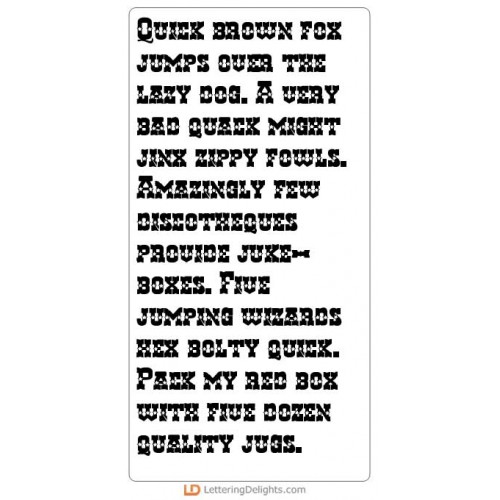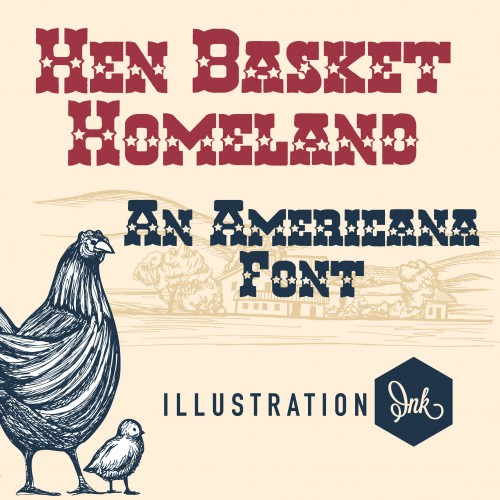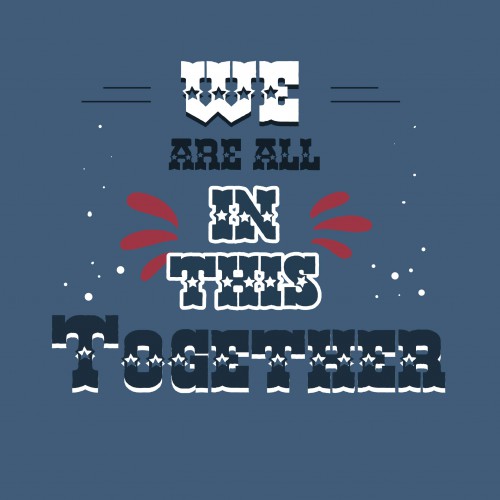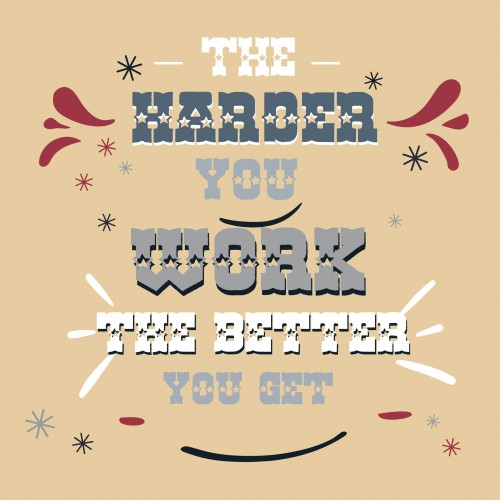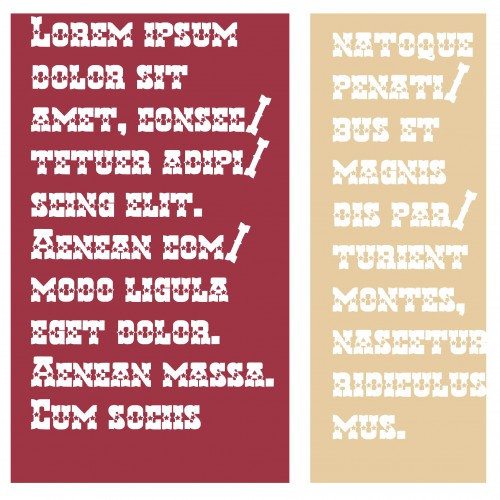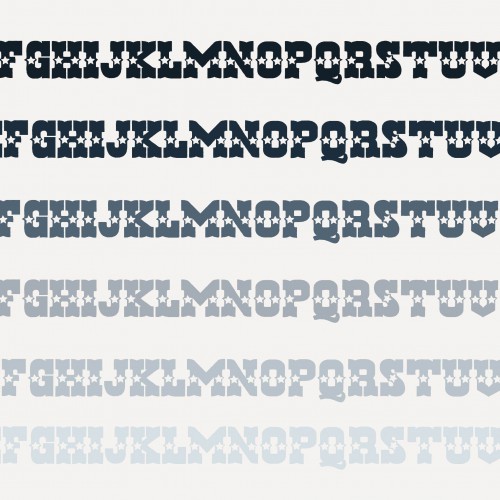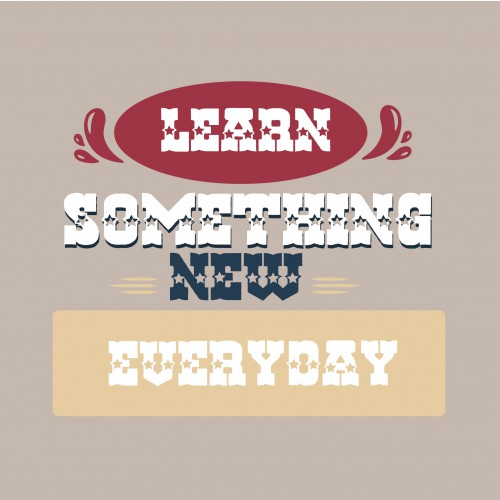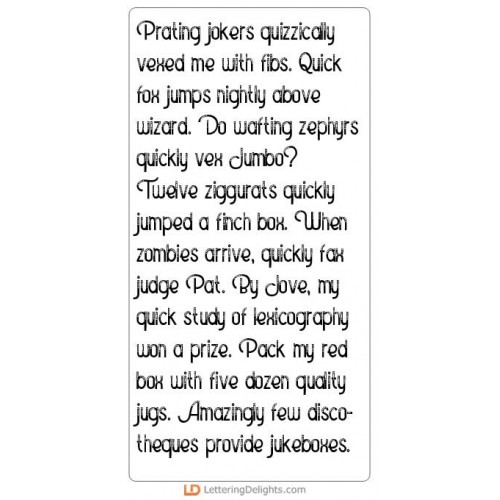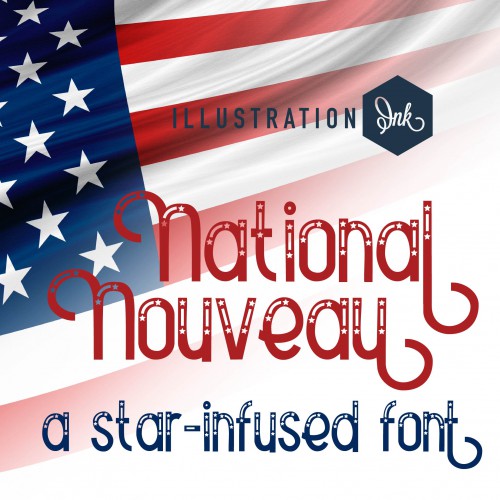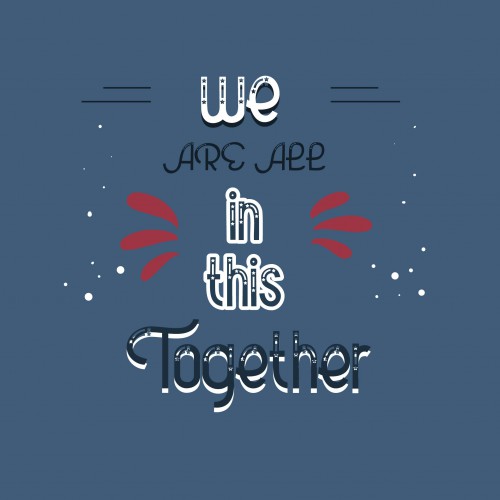
1. Oh My Stars - Font Bundle
PN Hen Basket Homeland - FN
This western-influenced font with stars is great for old west or circus themed projects...
PN National Nouveau - FN
This good looking sans serif sports highlights and stars throughout. There is an alt case of flouis..
ZP Scribble Stars - FN
This hand-doodled font features youthfu, hand-drawn stars...
LD Patriotic Spudster - FN
This blocky sans serif is very grungy with stars throughout...
PN Fat Stars and Stripes - FN
This adorable, hand-crafted font features starts and stripes..
PN Cutesie Americana - FN
This youthful, toggled font features stars and stripes...
PN Loquacious Liberation - FN
This hand-written font features curled flourishes and stars...
ZP Doohickey Patriot - FN
This half-dipped font features stars on the botton and stripes up top...
ZP Lookey Liberty - FN
This cartoon-like font features american imagery...
ZP We Can Do It - FN
This sans serif font is a serious patriotic font with stars and stripes..